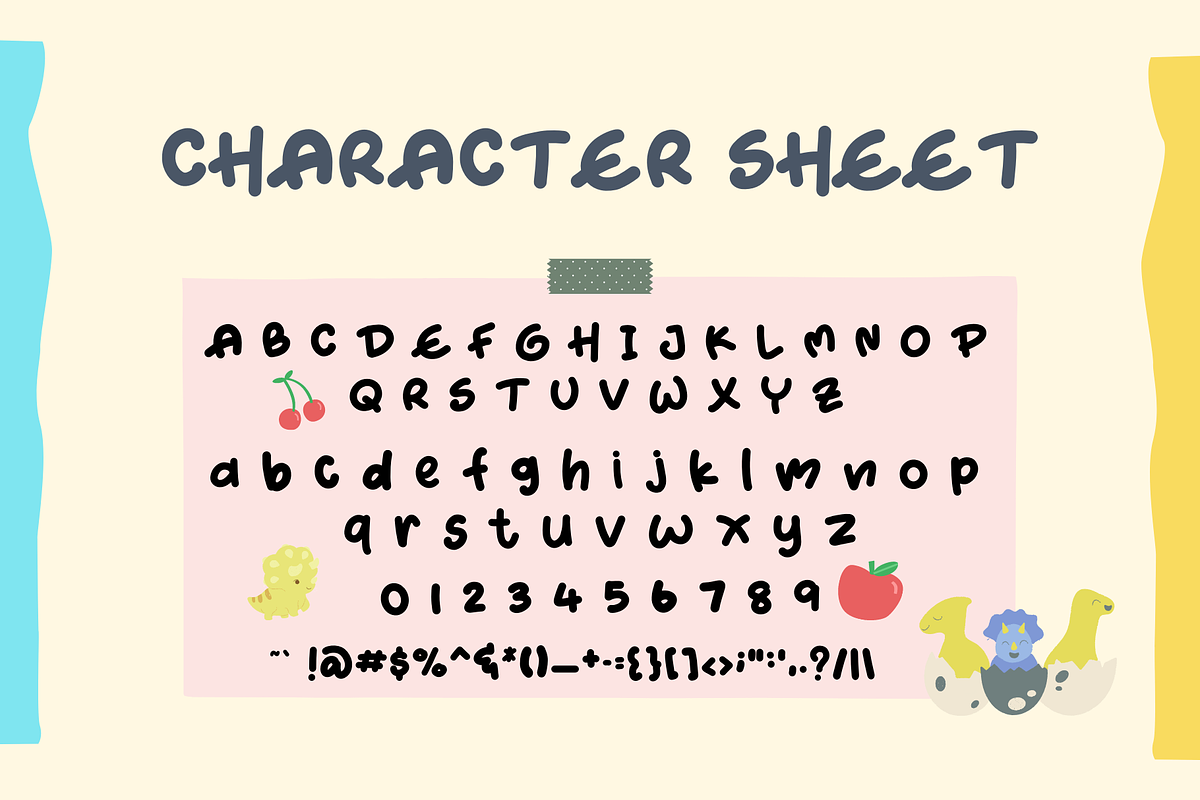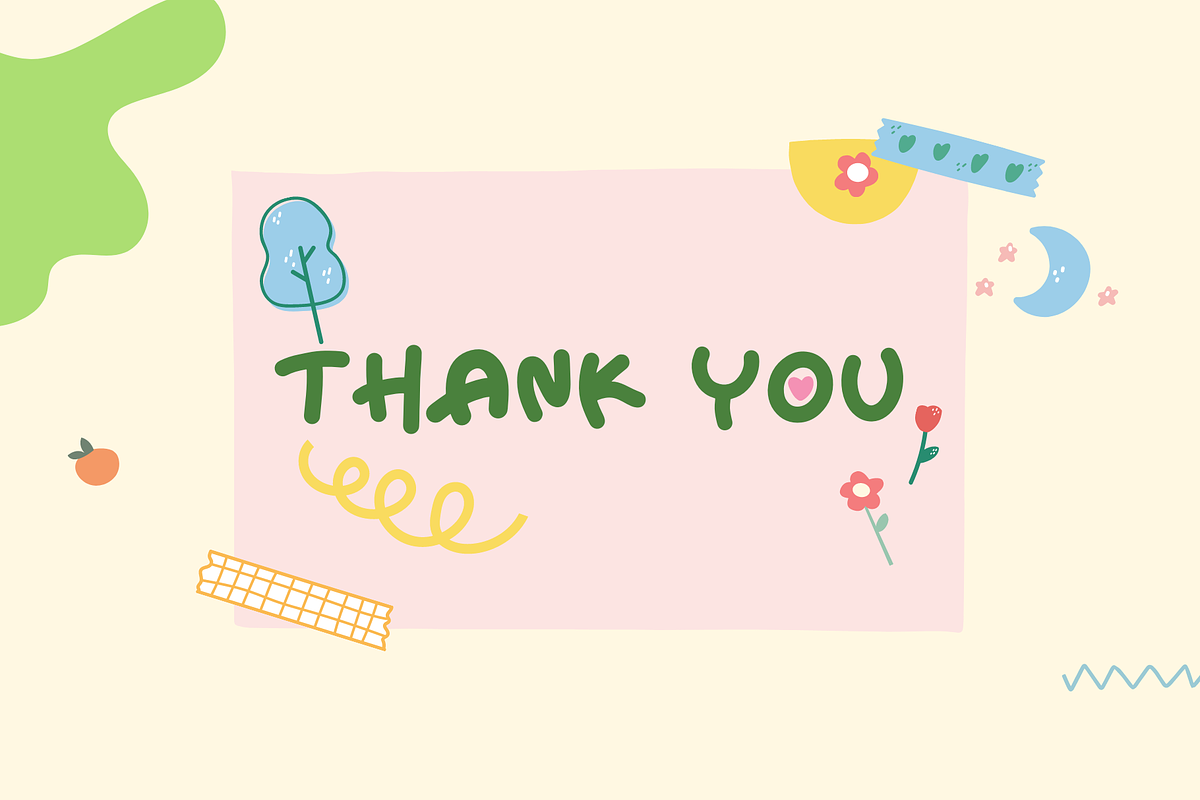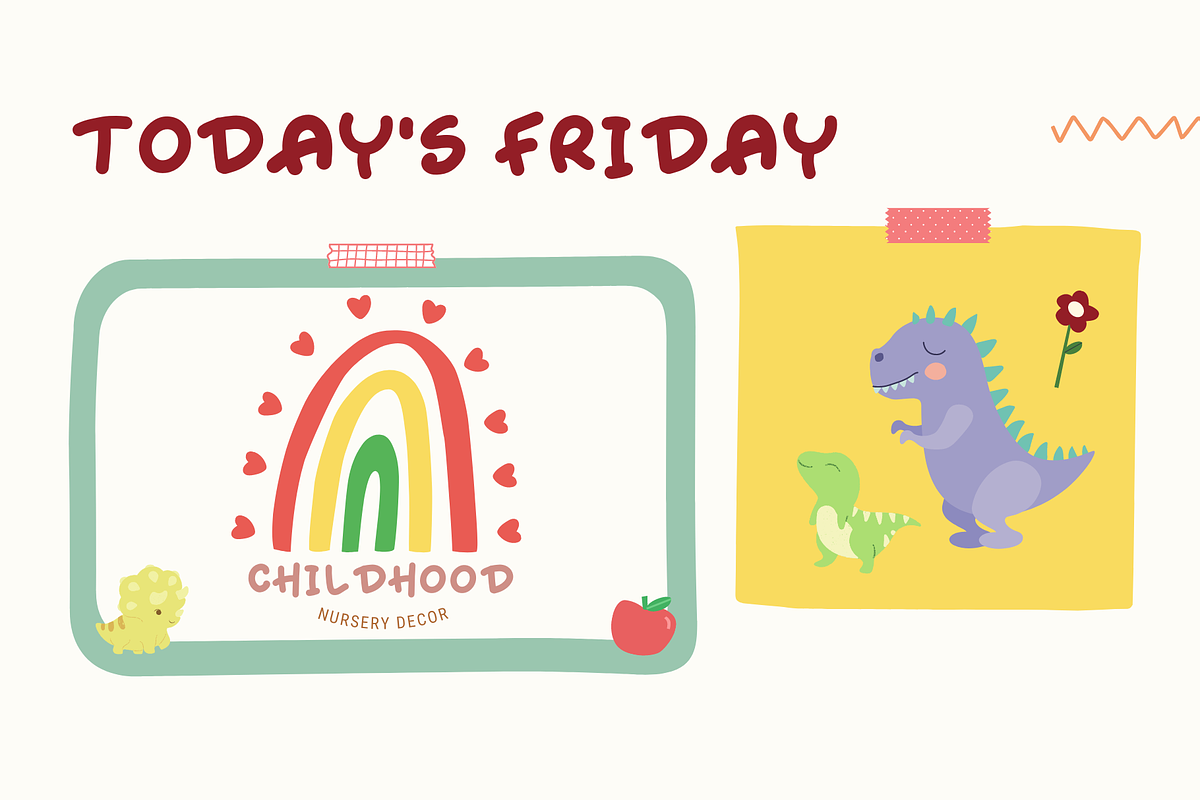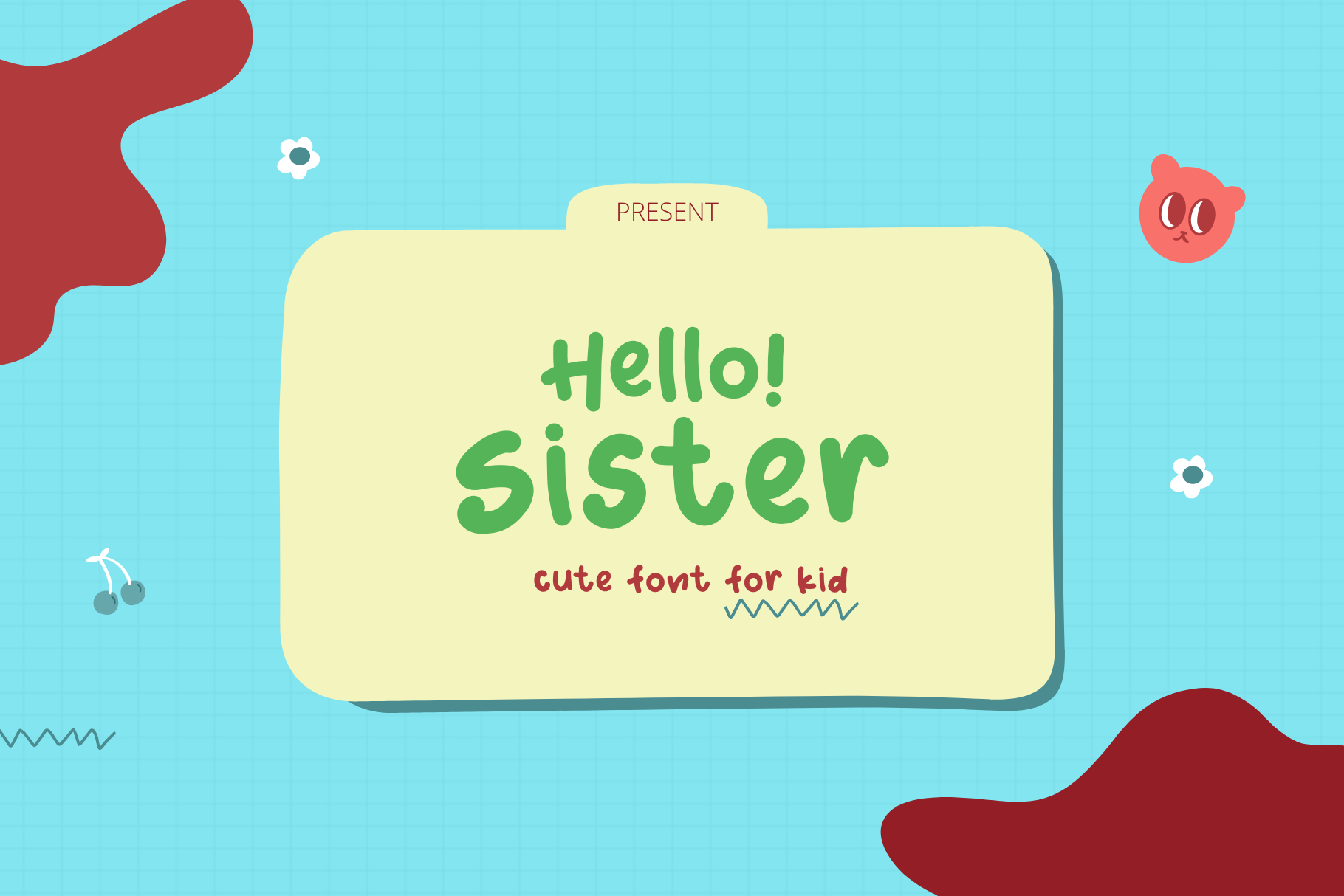
Hello Sister | Kid Font
Hello Sister is a super fun beautiful designer font. It is perfect for headings, logos, posters, wedding invitations, blog posts, social media, and more!